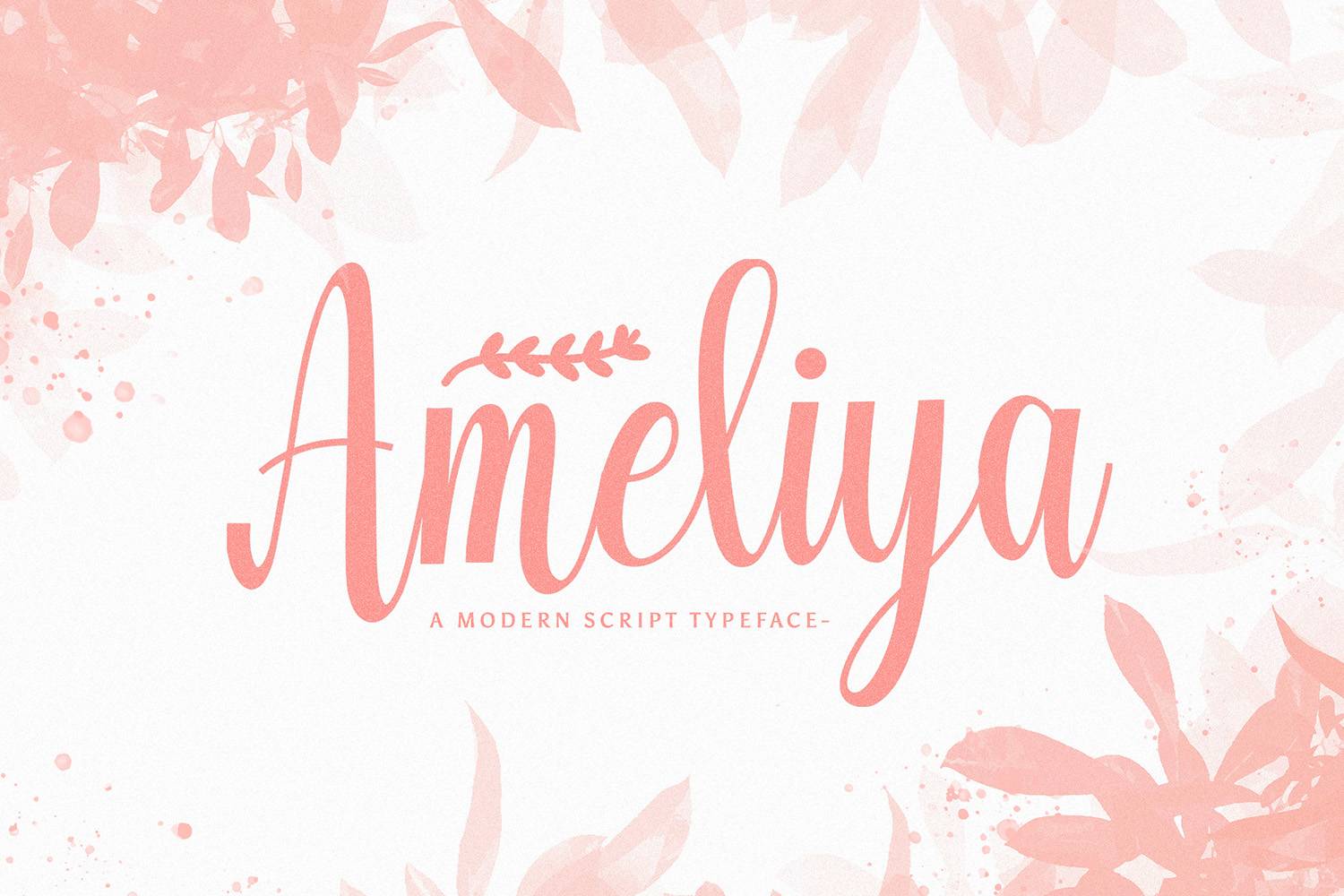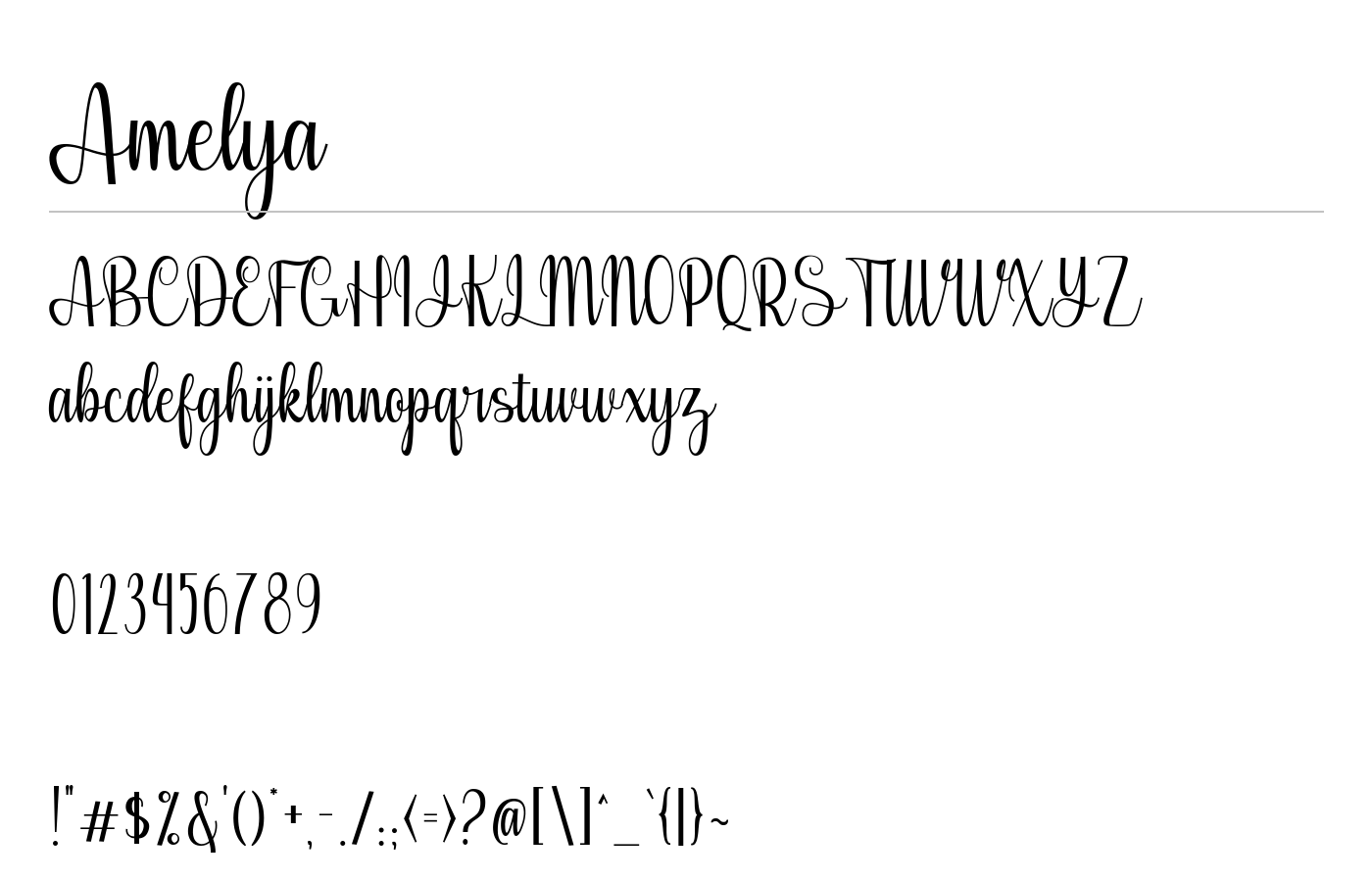
Amelya is an elegant, slender script font with a tall x-height and delicate, flowing strokes that give it a graceful and refined appearance. Its playful yet sophisticated style, featuring charming curls and smooth connections, makes it ideal for invitations, branding, and feminine designs where a touch of warmth and personality is desired. With its distinctive uppercase and lowercase letters alongside clean, slim numerals, Amelya works beautifully in headlines and decorative text.
Amelya Font